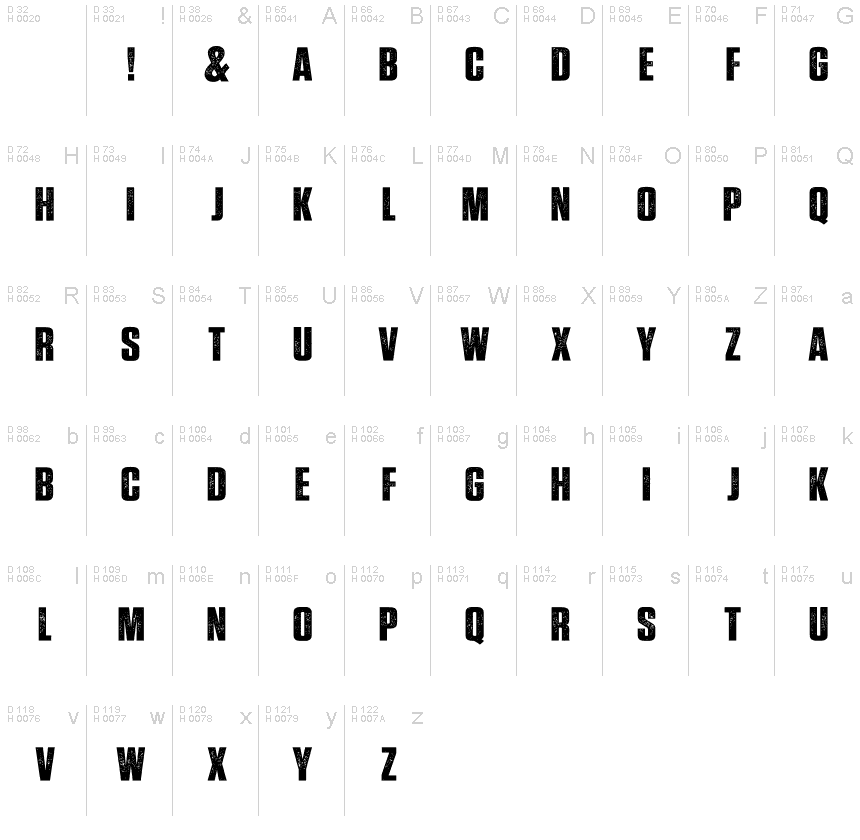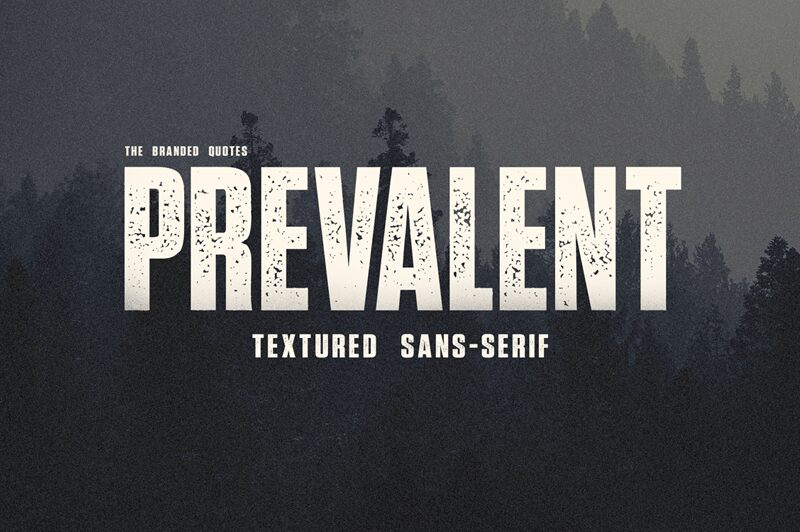
Prevalent Minor Demo
Introducing Prevalent Minor, the bold eroded display font from The Branded Quotes. Its narrow width makes it perfect for creating eye-catching titles and headlines to grab your audience's attention. Prevalent Minor is also great for logos, posters and social media graphics.
Inspired by the massive rise of automatic color-grading on photography and videography. Prevalent is a Sans Serif with an incorporated distress, texture effect. The acrylic engraving gives a vintage and aesthetic look on your project. This font works well with your macro photography, portrait and wide-angled shots. Prevalent font also is best used for cinematic videos, classic posters, invitations and greeting cards, band album cover and product presentations.
OTF Prevalent Regular - sans serif with acrylic texture
OTF Prevalent Minor - short and narrow extended-space version
Features: Basic Alphabet, Punctuations and Numerals